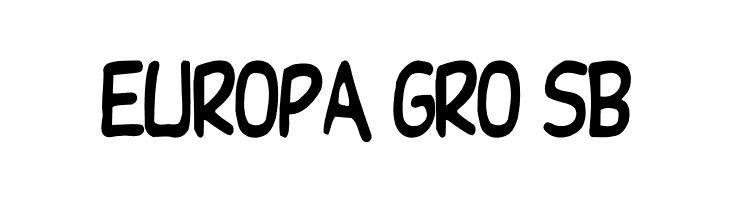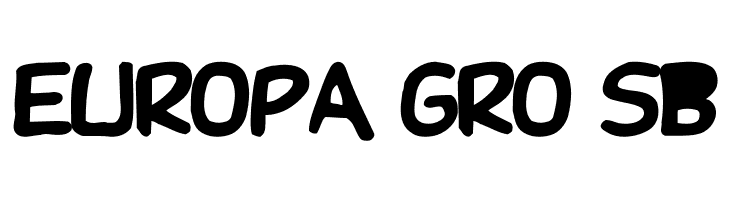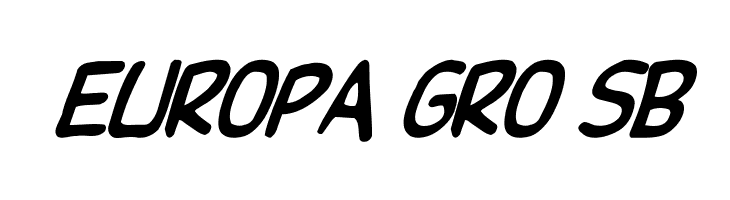
( Fonts by DeNada Industries - Mike Allard )
A decorative Gothic font with intricate flourishes and modern elements.
( Fonts by Casady & Greene )
A bold, sans-serif font with characters enclosed in square keycap-like frames.
A playful, handwritten font with a childlike charm and bold strokes.
A bold, graffiti-inspired font with dynamic and energetic strokes.